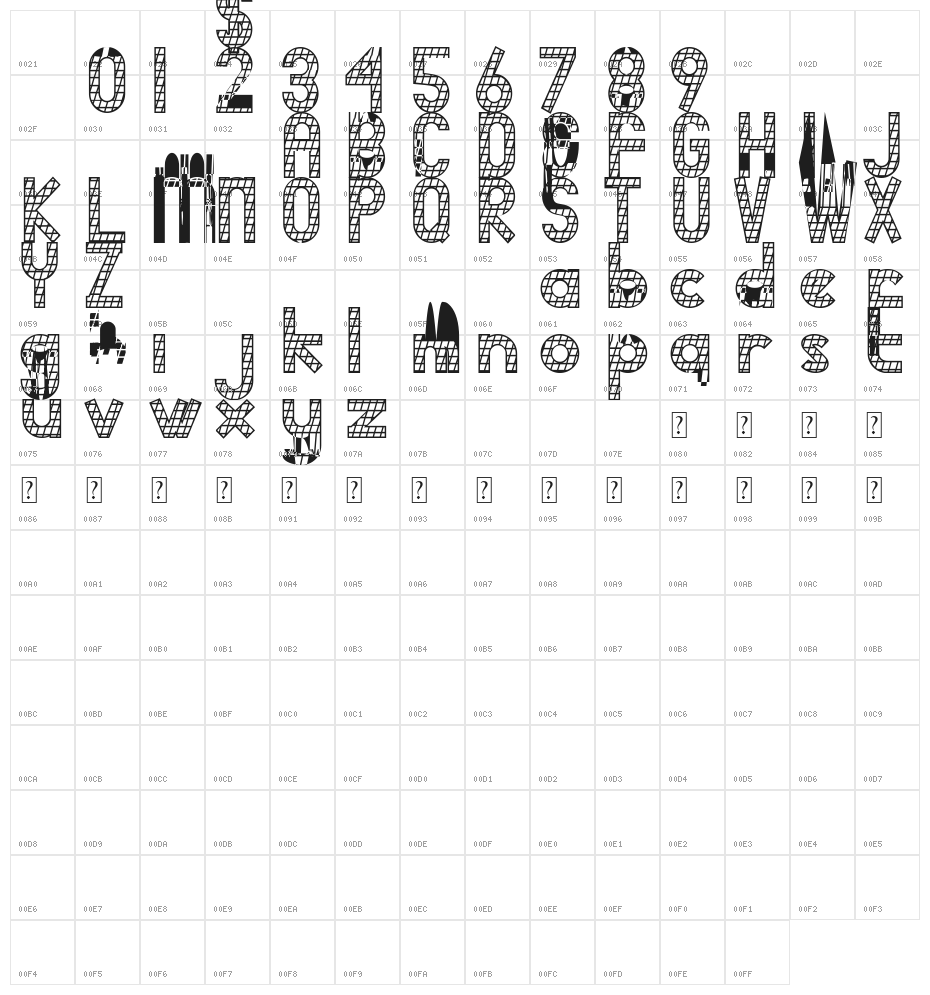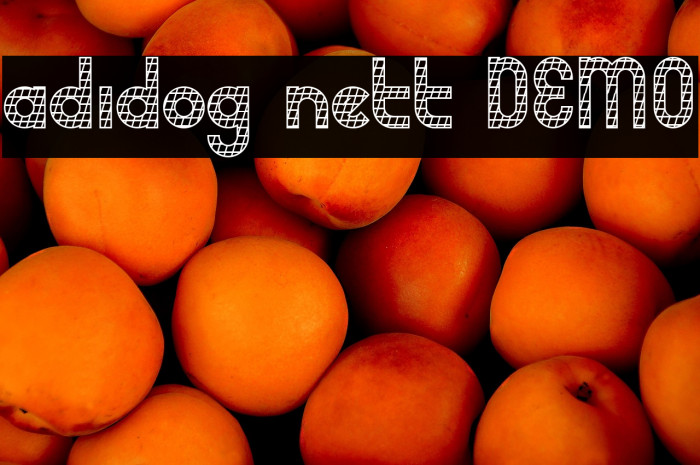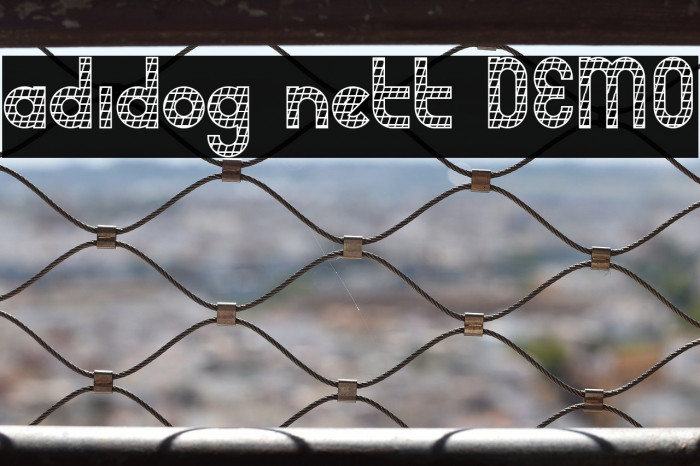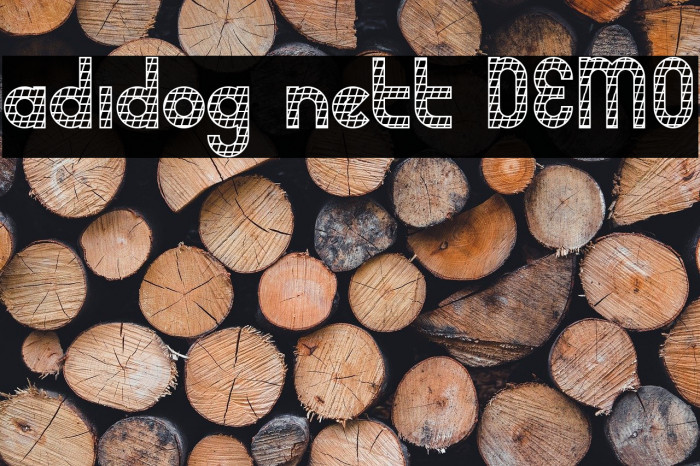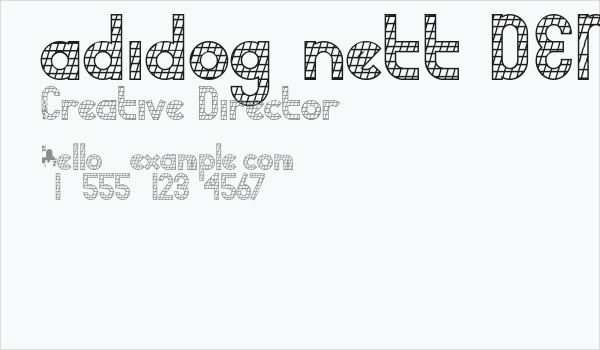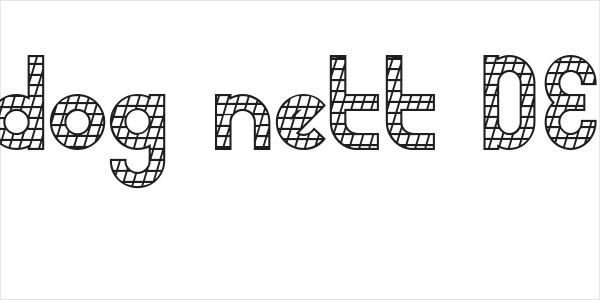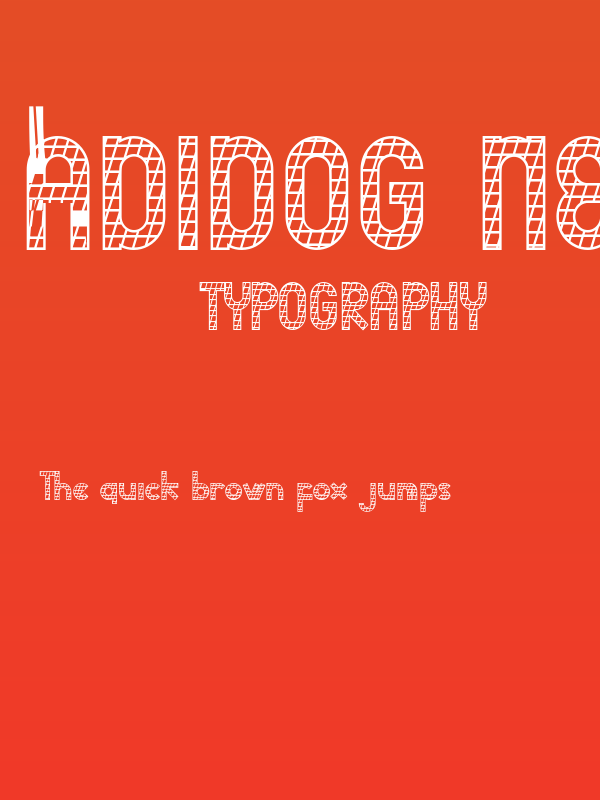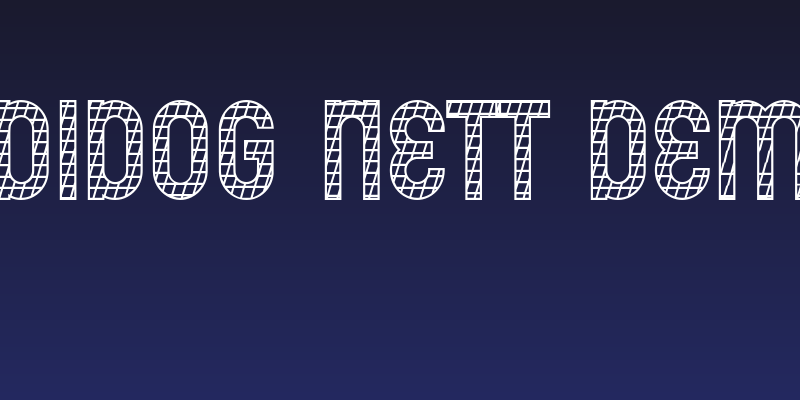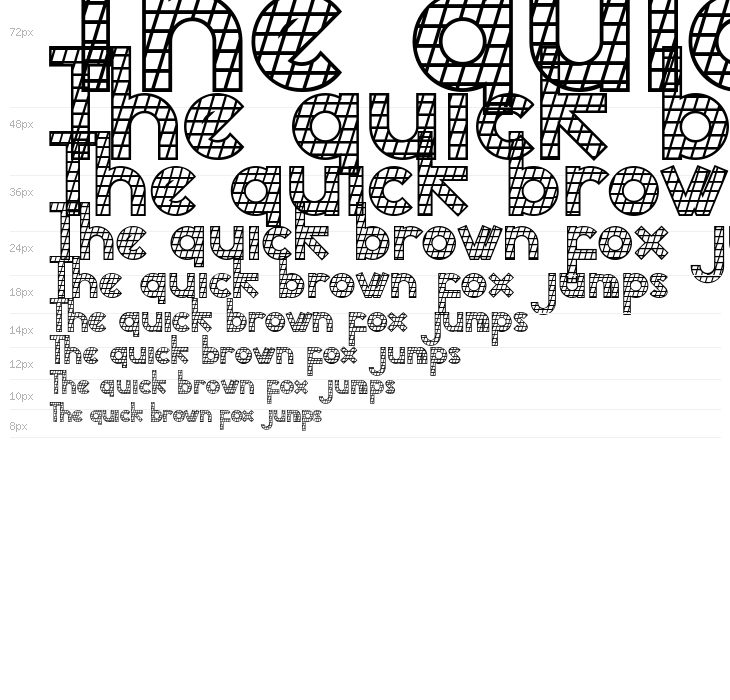
adidog nett DEMO Font
adidog nett DEMO Description
This font features a unique, decorative style with a grid-like pattern filling each character. The letters are bold and rounded, giving them a playful and eye-catching appearance. The uppercase and lowercase letters maintain a consistent style, with the grid pattern providing a textured look. The numerals and special characters follow the same design, ensuring uniformity across all glyphs. This font is ideal for projects that require a fun and engaging visual element, making it suitable for creative and informal designs.
| Proposed Projects | Ideal for posters, children's books, playful branding, and creative design projects. |